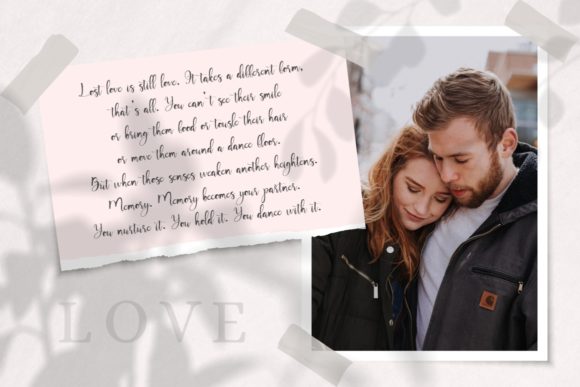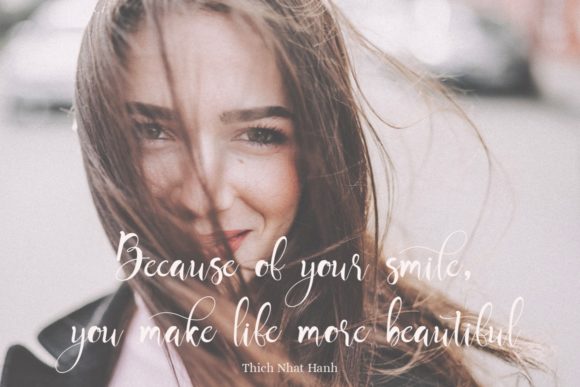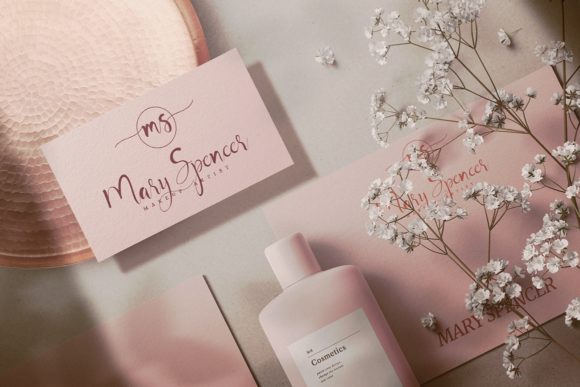
Introduction to Mayla Font
Mayla is a beautiful handwritten script font.
This font will look outstanding in any context, whether it’s being used on busy backgrounds or as a standalone headline .
Key Features of Mayla Font
Why Choose Mayla Font?
Mayla Font offers exceptional quality and versatility, making it a valuable addition to your design toolkit. Whether you’re creating for personal projects or commercial use, Mayla Font delivers professional results.